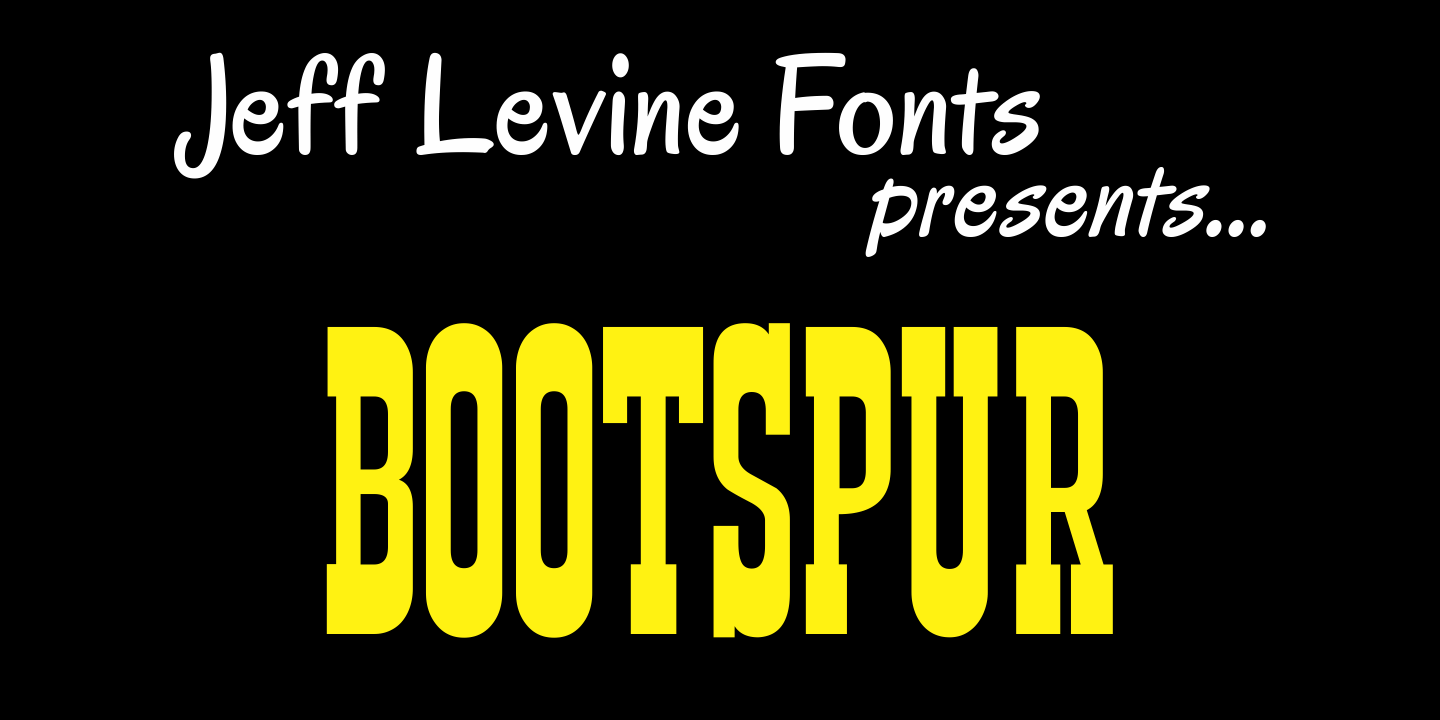
Bootspur
Art Deco and Western styles fuse into one design in Bootspur JNL.
A rounded A,M,N and W along with the Art Deco curvature found in the K,R,X and Y set Bootspur JNL apart from many of the other condensed Western fonts currently available.
Bootspur includes 207 glyphs.
Bootspur JNL Regular by Jeff Levine Fonts